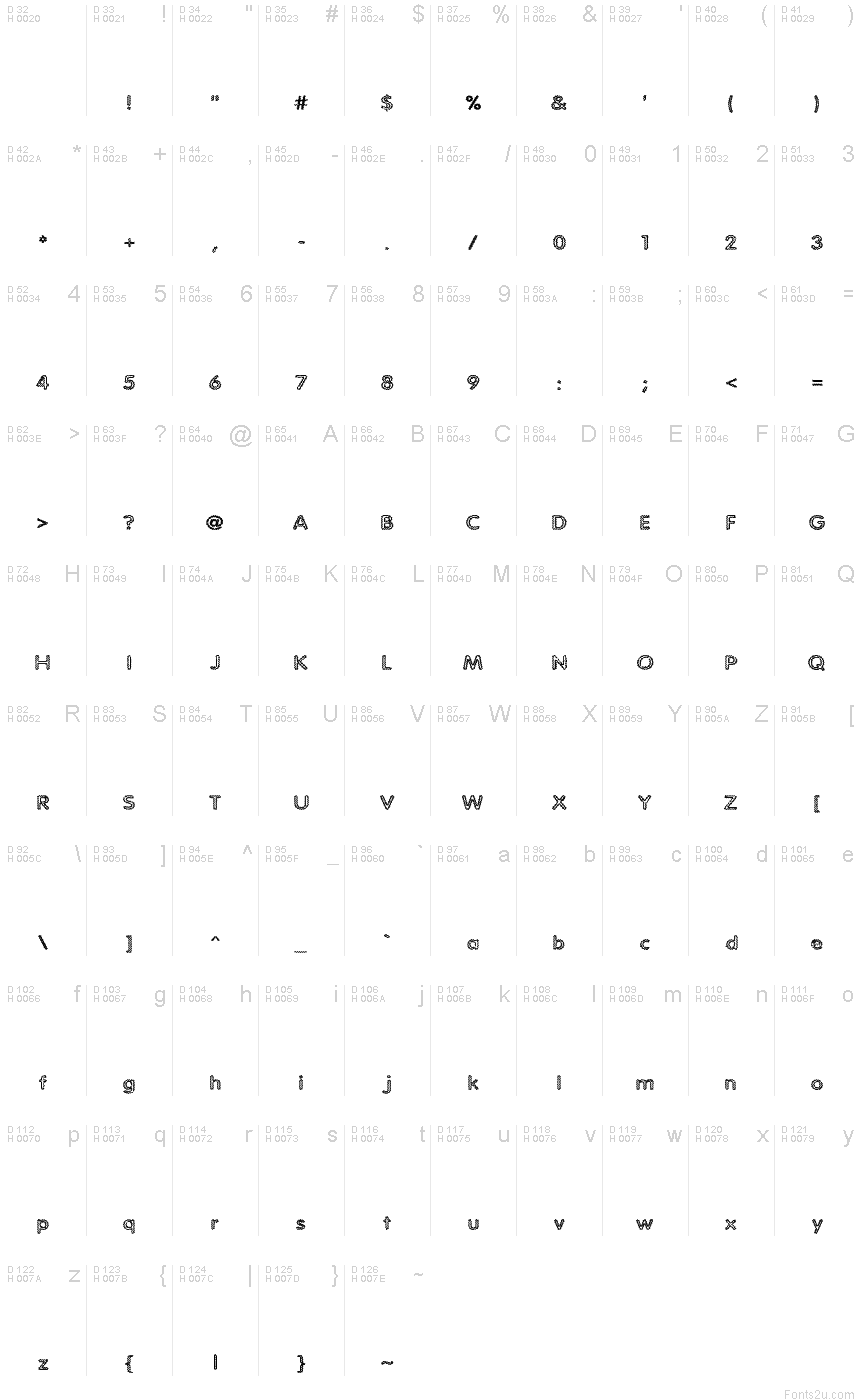
Static Charge
Static Charge by GemFonts98 is a free distorted outline display font with a jittery, electric feel. The letters look like they have been shaken by interference, with zigzag edges and wavering contours that make the whole font feel noisy, unstable, and a little handmade.
That energy suits poster headlines, zine covers, band flyers, title cards, and club graphics where a free font can carry a rough signal-noise mood fast. It also works well for short branding, web banners, and occasional drop-ins where the restless outline gives even simple words a charged, vibrating presence.